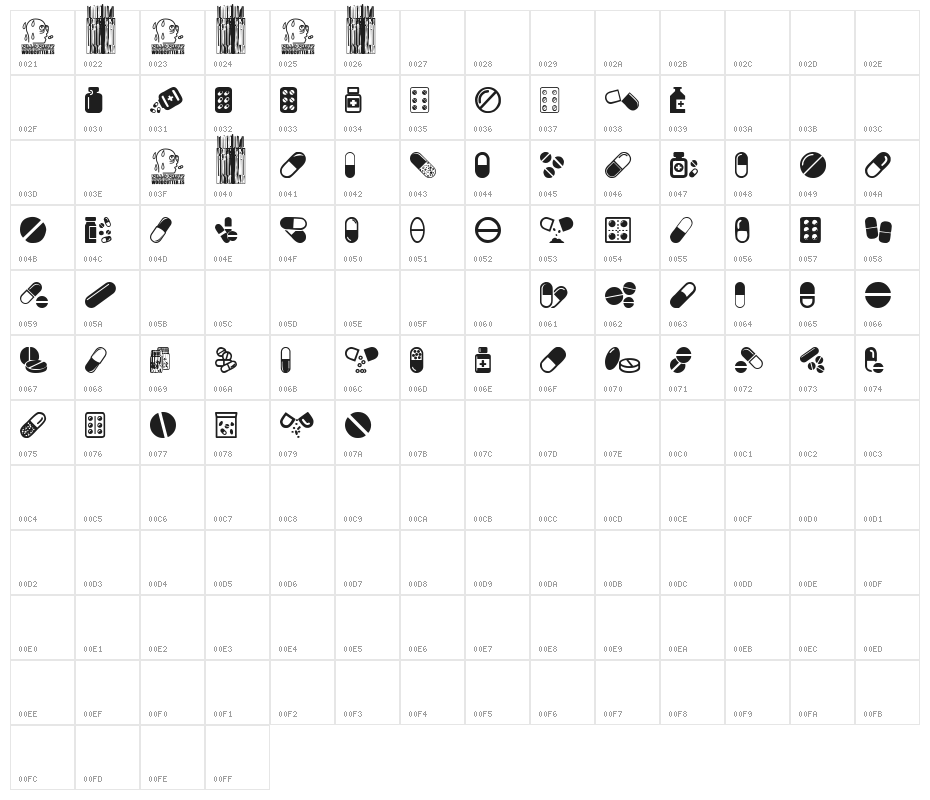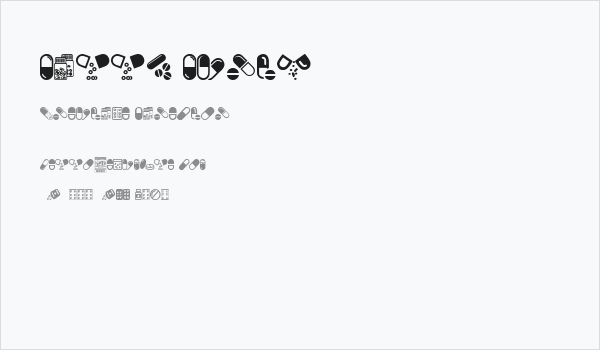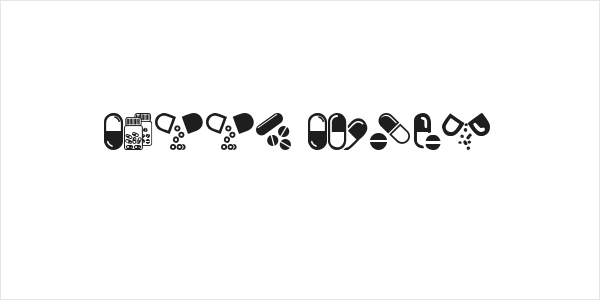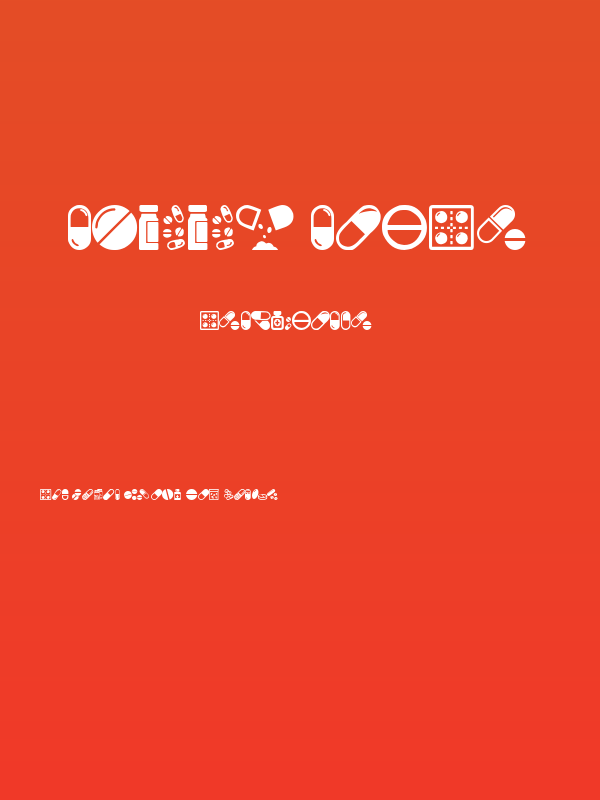
Pills Party Font
A decorative dingbat font featuring various pill, capsule, tablet, and medicine bottle icons in bold, high-contrast black and white silhouettes. Each character is represented by a unique pharmaceutical or medical-themed symbol, making it highly illustrative and playful.
Overall StyleDecorative, Playful, Thematic
Use CaseLogos, Posters, Infographics, Packaging, Event Materials
Proposed ProjectsHealth awareness posters, pharmacy branding, medical infographics, educational materials, playful packaging, event flyers.